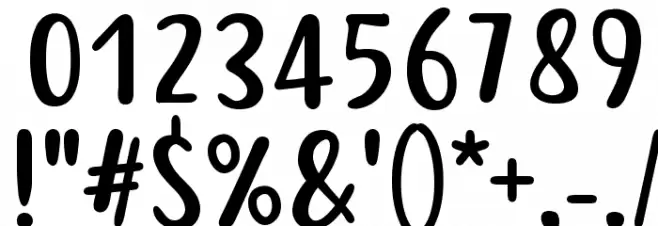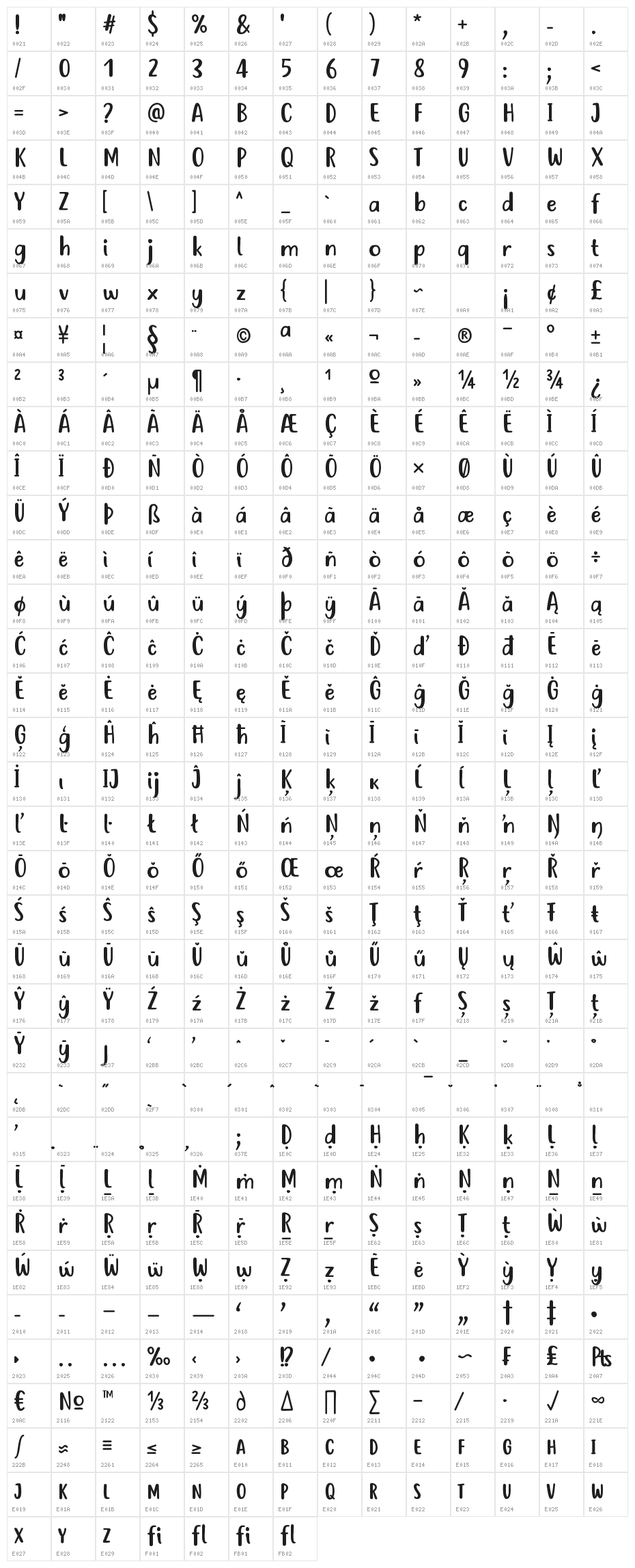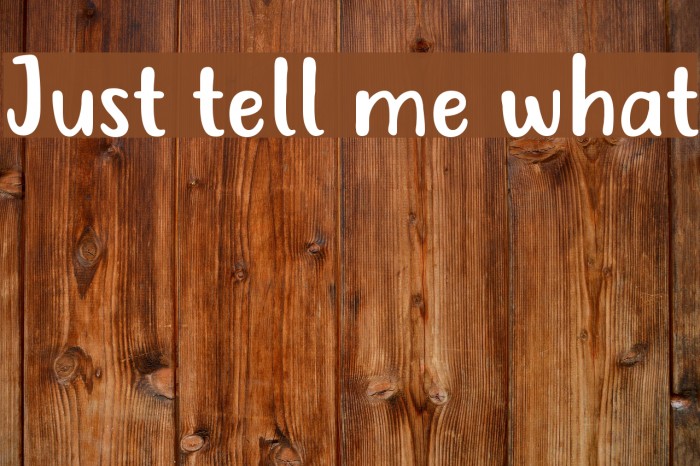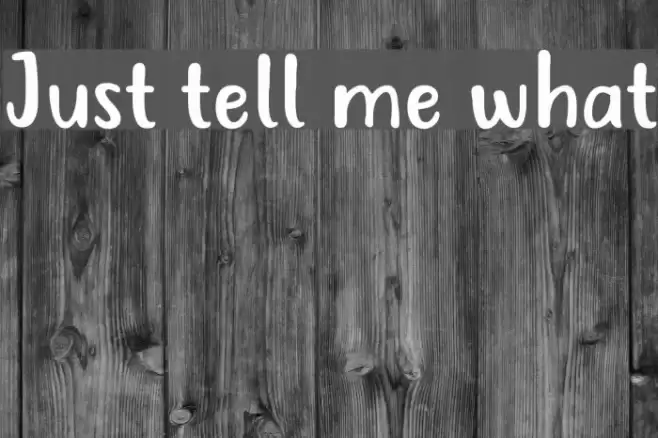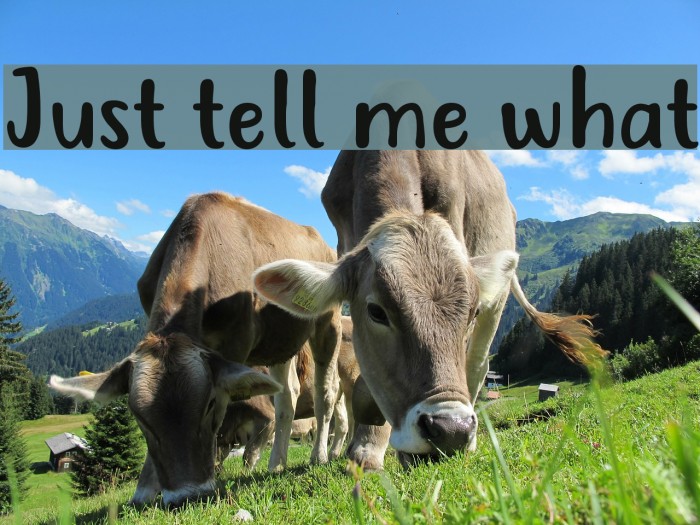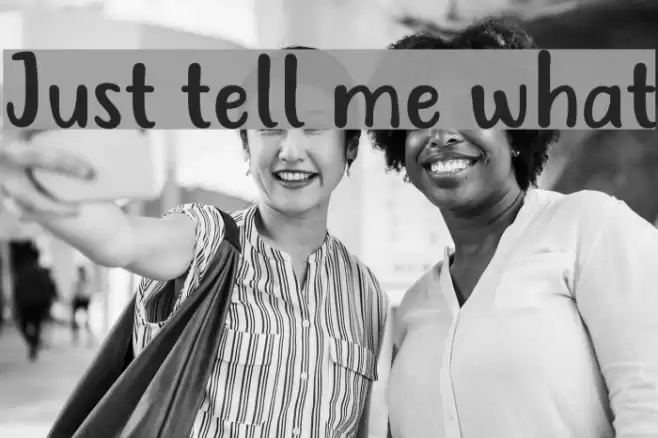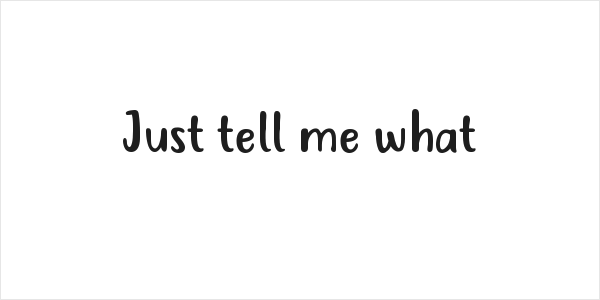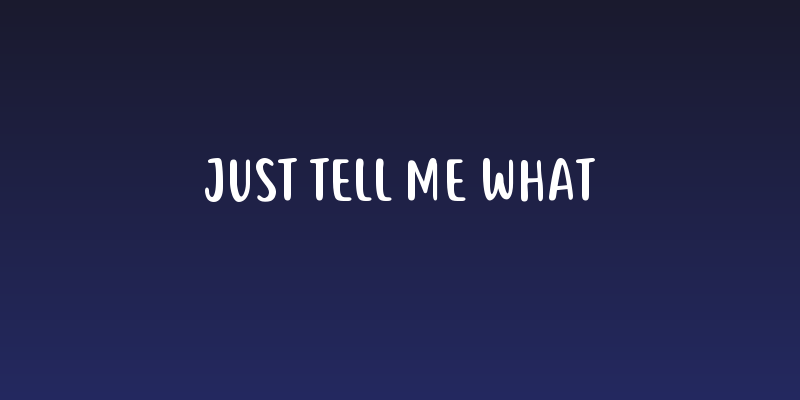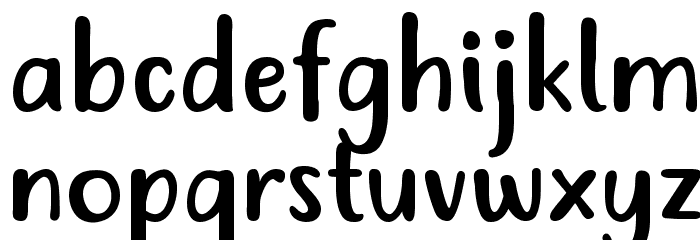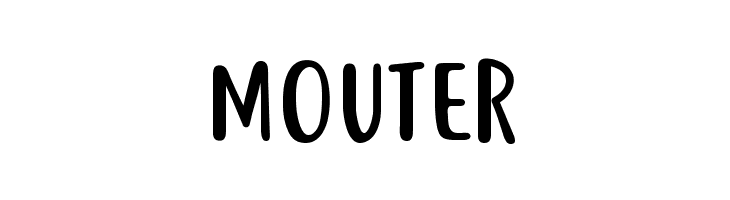
Just tell me what Font
Just tell me what Description
This playful and informal font features rounded, bold characters with a handwritten style. The uppercase and lowercase letters maintain a consistent flow, giving a casual and friendly appearance. The numerals and special characters are designed to match the overall whimsical aesthetic, making it suitable for creative and fun projects. The strokes are uniform in thickness, contributing to a cohesive look across all characters. This font is ideal for projects that require a personal touch or a sense of approachability.
| Proposed Projects | Ideal for children's books, greeting cards, playful branding, and social media graphics. |